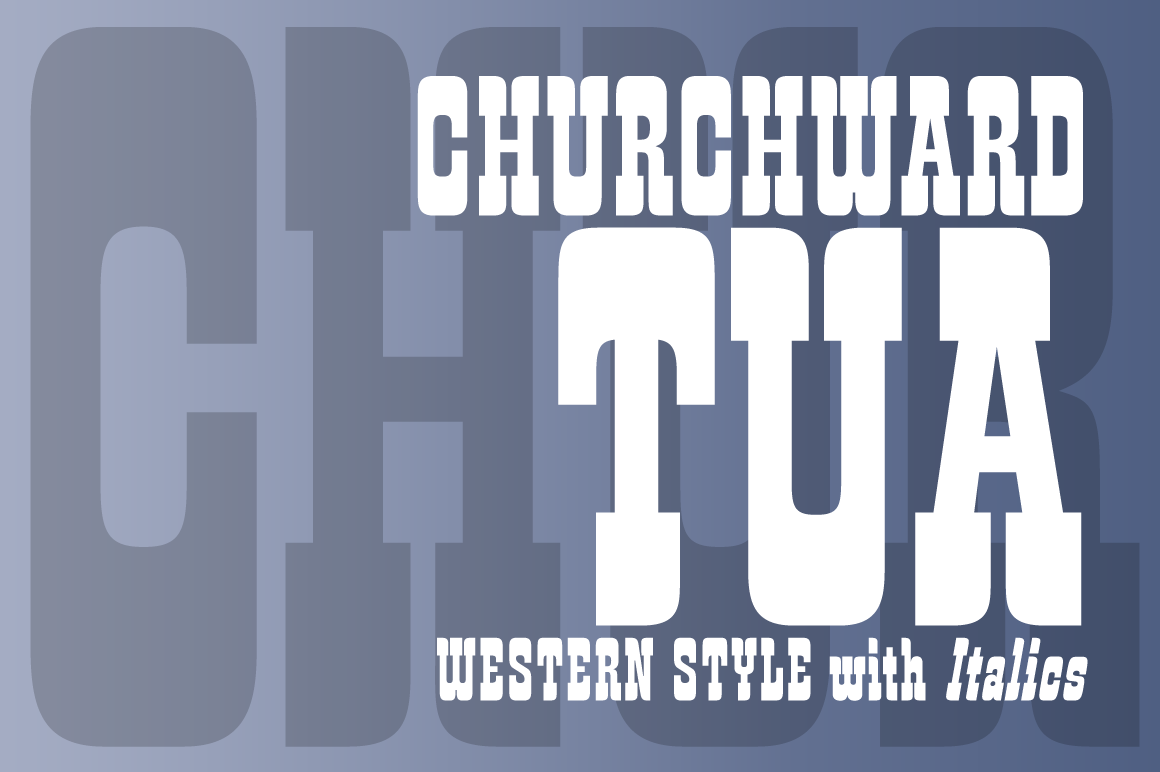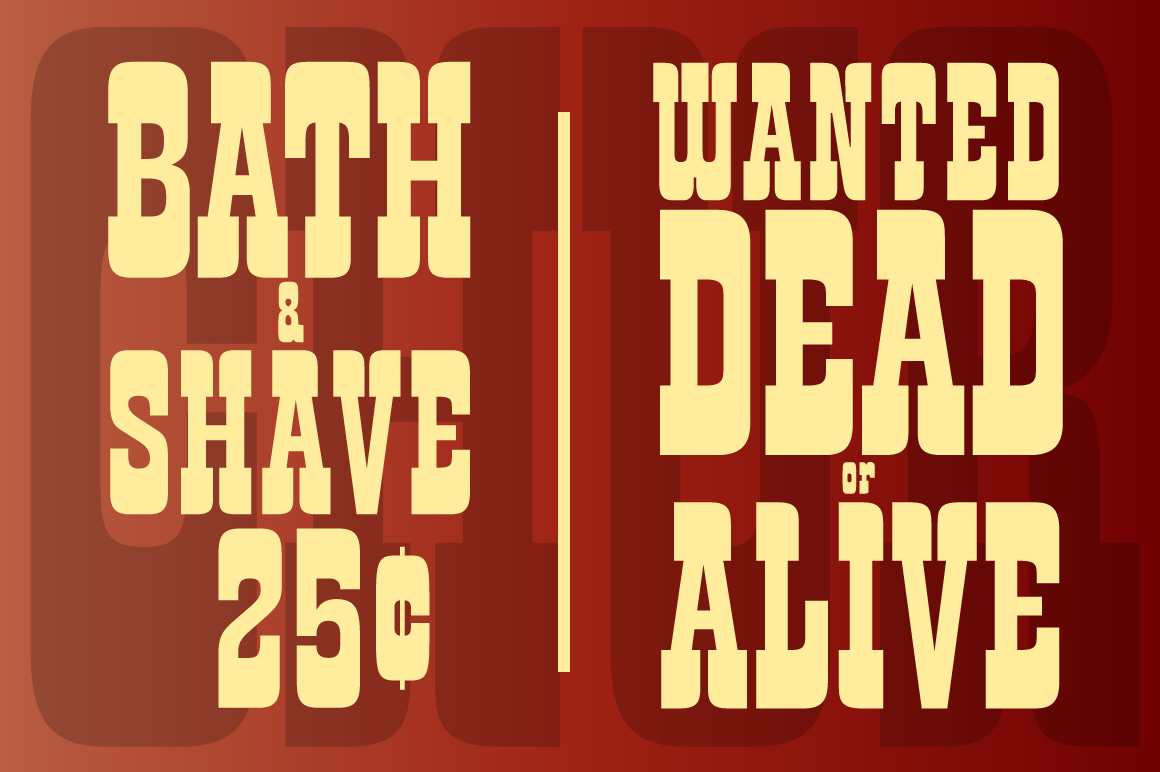
Churchward Tua Family
Churchward Tua Family: A Quirky Old West Slab Serif
The Churchward Tua Family is a distinctive slab serif typeface designed by the late Joseph Churchward. This font family captures the essence of the Old West, evoking images of cattle drives and frontier towns with its unique design.
Key Features of Churchward Tua Family
• Old West Aesthetic: Perfectly suited for designs that aim to capture a rustic, frontier-era feel
• Quirky Details: Features Churchward’s trademark unconventional elements throughout the characters
• Two Styles: Available in Regular and Italic variations for versatile use
• Strong Visual Impact: Ideal for headlines, posters, and attention-grabbing text
Ideal Uses for Churchward Tua
The Churchward Tua Family’s unique characteristics make it particularly well-suited for:
• Western-themed branding and signage (e.g., saloons, jailhouses)
• Poster designs for country music events or rodeos
• Book covers or movie titles for Western genres
• Vintage-inspired packaging for products with a frontier theme
Comparison with Other Slab Serif Fonts
While Churchward Tua shares the bold characteristics of other slab serifs like Tecnica Slab Family, its Old West-inspired design sets it apart. Unlike more modern slab serifs such as Cabo Slab, Churchward Tua offers a more thematic and playful approach to typography.
When incorporating Churchward Tua into your designs, consider the following tips:
• Use for headlines or short blocks of text to maximize its unique character
• Pair with simpler sans-serif fonts for body text to create contrast
• Experiment with both Regular and Italic styles to add variety to your layouts
• Consider using it in projects where you want to evoke a sense of the Old West or frontier spirit
The Churchward Tua Family is an excellent choice for designers looking to add a touch of Old West charm to their work. Its quirky details and strong slab serif design make it stand out in the world of typography. Whether you’re working on logo designs, themed event materials, or creating eye-catching poster designs, Churchward Tua offers the perfect blend of character and readability.
Explore how Churchward Tua can bring a frontier spirit to your design projects. From Western-themed branding to vintage-inspired layouts, this font family provides the tools to create impactful and memorable typography that captures the essence of the Old West.